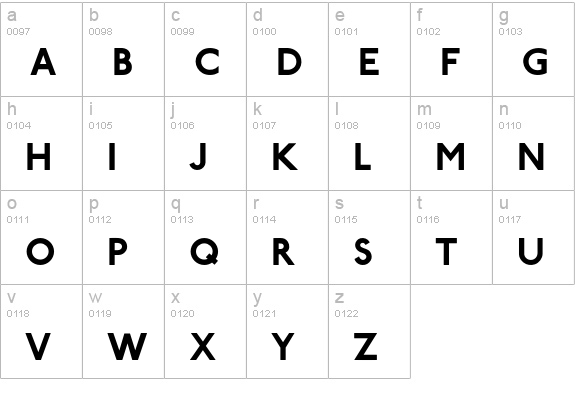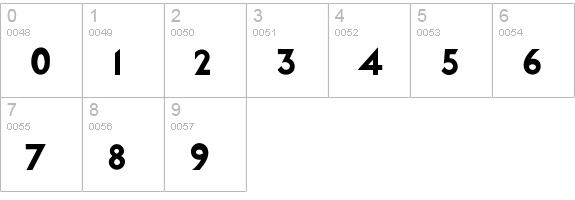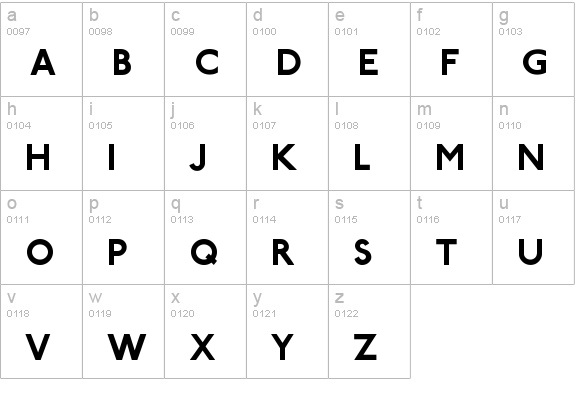
P22JohnstonUnderground-Bold Font Details
P22JohnstonUnderground-Bold is a strong, high-contrast variant in the P22JohnstonUnderground typeface family \xE2\x80\x94 well suited to headlines, attention-grabbing titles, and strong calls-to-action.
P22JohnstonUnderground-Bold font is a modern and versatile typeface that exudes a bold and strong presence. With its unique design, this font captures the essence of urban environments and brings a contemporary edge to any project. With its clean lines and geometric shapes, P22JohnstonUnderground-Bold font is perfect for headlines, titles, logos, and any other design element that requires a touch of sophistication and strength. Its bold weight commands attention and makes a statement, while still maintaining readability and legibility. What sets P22JohnstonUnderground-Bold font apart is that it is freely available to download at FontsMarket.com. This means that designers, creatives, and typography enthusiasts can enjoy the benefits of this exceptional font without any cost. Whether you are working on a personal project, a commercial venture, or simply exploring typography, P22JohnstonUnderground-Bold font is a valuable asset that will elevate your designs to new heights. The versatility of P22JohnstonUnderground-Bold font extends beyond its bold weight. It pairs well with other fonts, adding a touch of elegance and sophistication to any typographic combination. Its clean and modern design makes it suitable for a wide range of applications, from print materials to digital platforms. When using P22JohnstonUnderground-Bold font, you can expect a seamless and enjoyable experience. Its well-crafted letterforms ensure smooth readability, even at smaller sizes. Whether it's a captivating headline or a striking logo, this font will effortlessly captivate your audience and leave a lasting impression. Overall, P22JohnstonUnderground-Bold font is a remarkable typeface that combines contemporary design with exceptional functionality. Its availability for free download at FontsMarket.com makes it accessible to designers of all levels. So go ahead, enhance your designs with the bold and impactful presence of P22JohnstonUnderground-Bold font and create eye-catching visuals that demand attention.